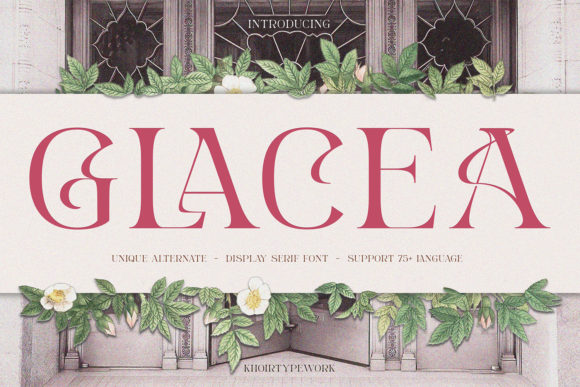
Unleash the Timeless Elegance of Glacea: A Serif Font that Embraces Tradition and Innovation
In the realm of typography, where letters dance and meaning takes flight, Glacea emerges as a captivating serif font, a fusion of classic beauty and modern allure. Like a whisper from the past, Glacea carries the wisdom of ages, inviting you to embark on a journey through time. Yet, within its timeless form, it pulses with a vibrant energy, a testament to its adaptability and contemporary relevance.
Glacea's characters stand tall and proud, exuding strength and confidence. Their serifs, like delicate brushstrokes, add a touch of sophistication, enhancing the font's overall charm. Whether you're designing a timeless masterpiece or a cutting-edge creation, Glacea will effortlessly elevate your vision, adding a touch of refined elegance to your digital creations.
With Glacea, versatility knows no bounds. Its inherent grace lends itself seamlessly to a multitude of design projects, from elegant wedding invitations to captivating social media posts. Whether you're crafting a sophisticated website or designing eye-catching marketing materials, Glacea will effortlessly adapt to your creative needs, becoming an indispensable tool in your design arsenal.
Glacea's PUA encoding unlocks a world of possibilities, granting you effortless access to a treasure trove of glyphs and swashes. Unleash your creativity and let your imagination soar as you explore the endless design combinations that await. With Glacea, the boundaries of self-expression dissolve, allowing you to weave intricate typographic tapestries that captivate and inspire.